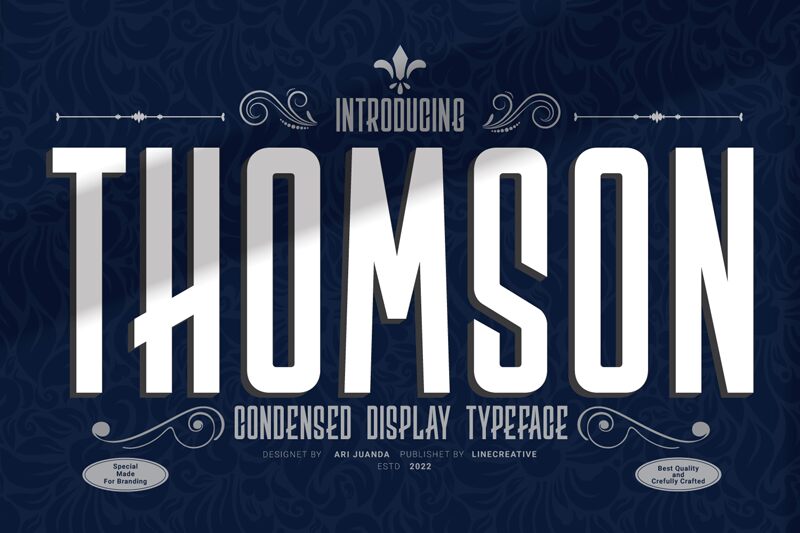
Thomson, a retro-inspired display font crafted by Linecreative, exudes a captivating blend of vintage charm and modern sophistication. With its condensed width and bold, striking letterforms, this font commands attention, evoking a sense of timeless elegance and understated elegance. The clean lines and geometric shapes lend an air of sophistication, making Thomson an ideal choice for a wide range of design applications.
The Thomson font's versatility shines through its ability to seamlessly integrate into various design contexts. From vintage-inspired branding and packaging to eye-catching headlines and editorial layouts, this font's distinctive character adds a touch of refined nostalgia that effortlessly elevates the overall aesthetic. Whether used for bold statements or subtle accents, Thomson's versatility ensures a harmonious and visually captivating outcome.